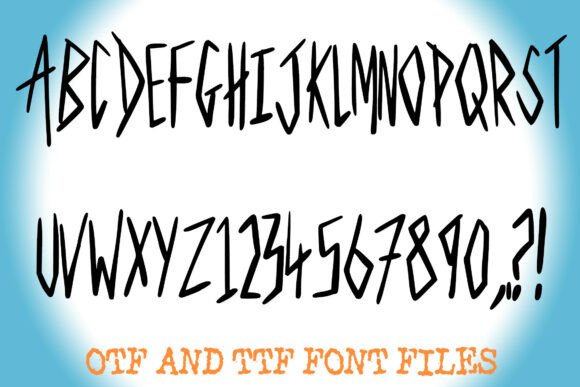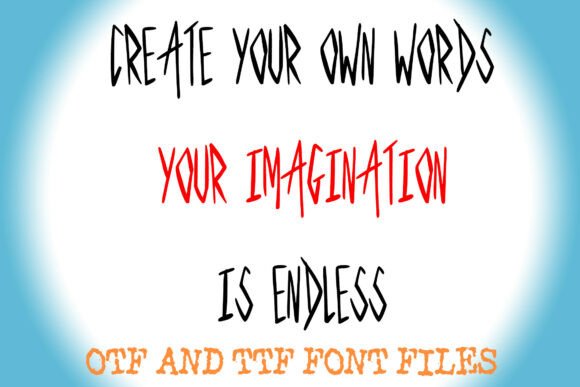
Introduction to Rough Thin Marker Font
You’re in the midst of brainstorming a creative project, and you’re on the hunt for the perfect design resource. Perhaps you’re crafting a bold poster for a music festival, or designing a set of quirky stickers for a friend’s birthday. Whatever your project, you’re likely searching for a font that adds a touch of authenticity and personality. Enter the Rough Thin Marker Font, a free download that’s set to revolutionize your design game.
This versatile font is more than just a pretty face – it’s a game-changer for designers who crave a high-quality, hand-drawn look without the hassle of creating it from scratch. With its edgy, urban vibe and transparent background, the Rough Thin Marker Font is the perfect addition to any design project. Whether you’re working on a DIY craft or a social media graphic, this font is sure to add a creative touch that sets your work apart from the crowd.
Key Features of Rough Thin Marker Font
- High-quality design resource perfect for creative projects
- Rough, hand-drawn style with thin lines and subtle texture
- Great for adding a unique touch to digital art, logos, and graphics
Honest Review: Rough Thin Marker Font
I recently had the opportunity to work with the Rough Thin Marker Font, and I must say it’s been a great addition to my design resource arsenal. ✨ This font is perfect for any creative project that needs a touch of edginess.
The Rough Thin Marker Font is available for free download, which is always a bonus for designers on a budget. One of the standout features of this font is its ability to be used on a transparent background, giving it a beautiful, high-quality appearance.
- What works well:
- Unique, hand-drawn feel that adds character to designs
- Free to download, making it a great resource for budget-conscious designers
- Works well on transparent backgrounds, adding depth and dimension
However, there are a few limitations to keep in mind: ⚠️ The font can be a bit difficult to read at smaller font sizes, and it may not be suitable for formal or professional designs.
Overall, I’m very impressed with the Rough Thin Marker Font and would definitely recommend it to designers looking for a unique and high-quality font for their creative projects.
Rough Thin Marker Font
Designing with Rough Thin Marker Font in Canva
When working with Rough Thin Marker Font in Canva, start by selecting the font from the design resource library. Upload your own image with a transparent background to use as a design element. Use the font to create a high-quality design for your creative project. Experiment with layering text and images to achieve a unique look.
Using Rough Thin Marker Font in Adobe Photoshop/Illustrator
In Adobe Photoshop and Illustrator, import the Rough Thin Marker Font and use it to create custom text and graphics. Take advantage of the high-quality font to add a touch of sophistication to your design. Combine the font with other design elements to create a cohesive look.
Applying Rough Thin Marker Font in PowerPoint/Word
When using Rough Thin Marker Font in PowerPoint and Word, select the font from the design resource library. Use the font to create eye-catching headings and titles. Add the font to your design to give it a unique touch. You can also use the font in combination with other design elements to create a cohesive look.
Tips for Getting the Most Out of Rough Thin Marker Font
For the best results, use the font on a high-quality image with a transparent background. Experiment with different font sizes and styles to create a unique look. You can also use the font in combination with other design elements to add depth and interest to your design.
Common Use Cases for Rough Thin Marker Font
Rough Thin Marker Font is ideal for creative projects that require a high-quality, unique font. Use the font for graphic design, digital art, and print design. The font is also great for creating custom graphics and logos.
Alternatives to Rough Thin Marker Font